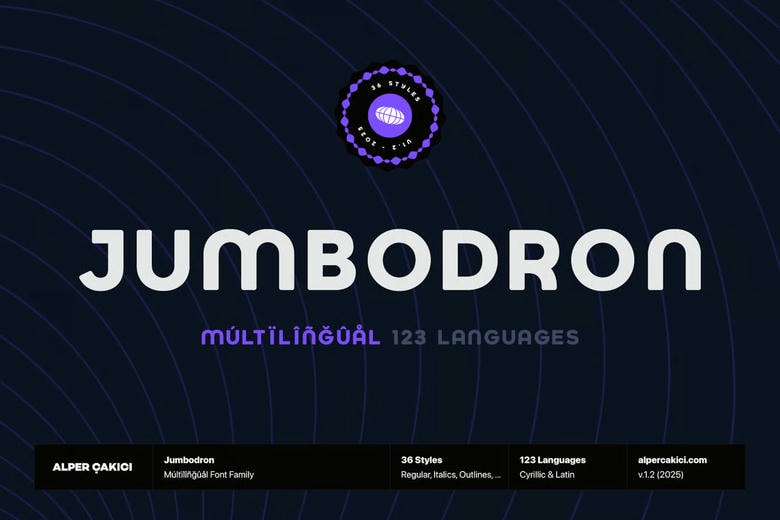
Jumbodron Font Family
Jumbodron is a modern geometric typeface with rounded corners, balanced proportions, and precise kerning. It’s a good choice for digital and print projects, and it supports 123 languages.
Jumbodron comes in 36 styles, from Regular to Black, with matching Italics and Outlines. This range gives you flexibility for branding, editorial, and interface design. Jumbodron combines a classic structure with a modern look.
Jumbodron Sans Serif Font Family